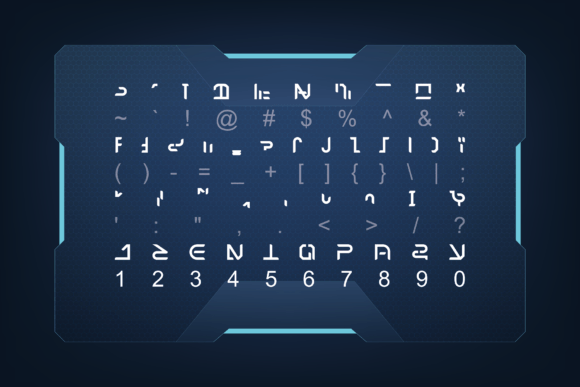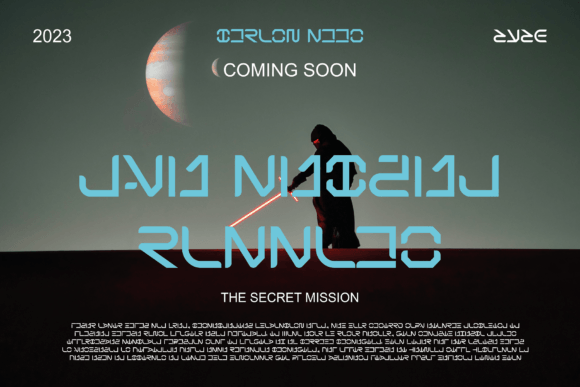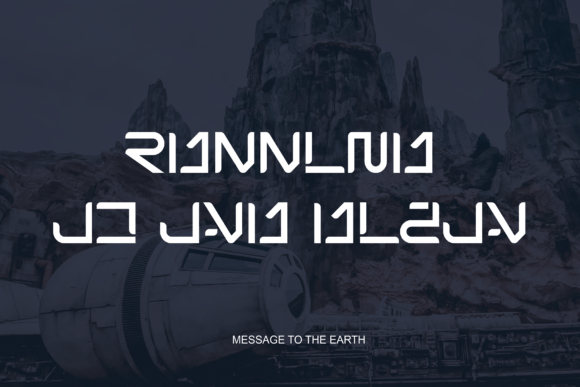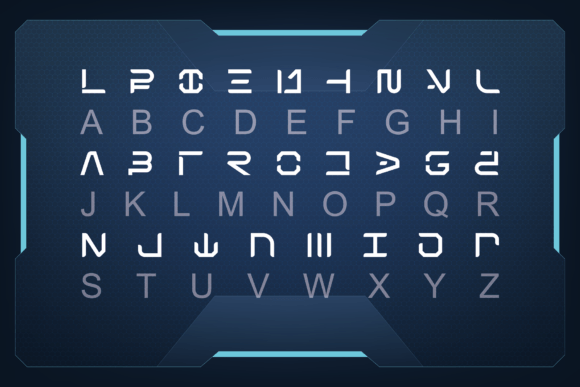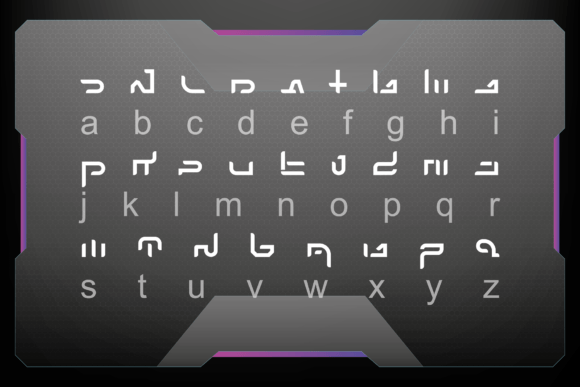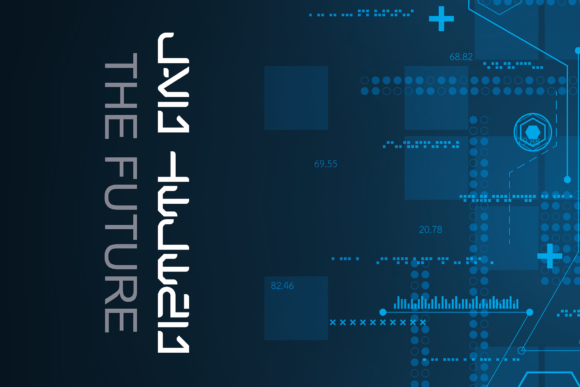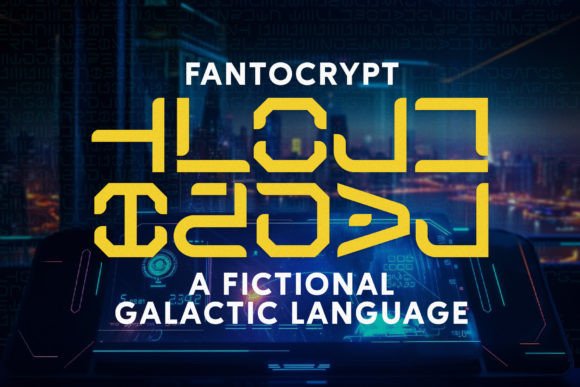
Unveiling the Mystique of Fantocrypt Font: A Cosmic Alphabet of Secrets
Imagine a font that holds the essence of an extraterrestrial language, shrouded in mystery and secrecy. Welcome to the world of Fantocrypt, a typographic marvel that transcends the boundaries of conventional design. This enigmatic alphabet is crafted to convey hidden meanings and messages, reserved for those who are initiated into its secrets. As we embark on this journey to explore Fantocrypt, designers and crafters will discover a font that not only sparks imagination but also offers endless possibilities for creative expression.
The Origin of Fantocrypt: A Galactic Enigma
Fantocrypt is more than just a font; it’s an experience. Its origins are shrouded in mystery, with whispers of an otherworldly source. This alien alphabet is unlike anything seen on Earth, comprising intricate shapes and symbols that seem to hold secrets and stories of their own. Each letter of the Fantocrypt font is carefully crafted to embody a specific meaning, inviting those who dare to decipher its codes to unravel the mysteries hidden within.
The Intricate Design of Fantocrypt
One of the most striking features of Fantocrypt is the way its letters are intricately interconnected, forming a complex web of meaning and nuance. The curves and angles of each character are perfectly balanced, creating a sense of harmony and balance in the overall design. This attention to detail not only makes Fantocrypt visually stunning but also hints at the depth of its cryptographic nature. Whether used for crafting compelling narratives in science fiction or for creating coded messages, Fantocrypt’s design is both functional and aesthetically pleasing.
A Font of Distinction
Despite its otherworldly origins, Fantocrypt boasts a distinctive and unforgettable appearance. Its unique blend of curves, angles, and mysterious symbols sets it apart from more conventional fonts. For designers and crafters looking to add an element of intrigue to their projects, Fantocrypt offers a refreshing alternative. Whether you’re working on a futuristic design project, creating top-secret communications, or simply looking to add a touch of the unknown to your work, Fantocrypt is sure to captivate your audience.
Exploring the Mystique of Fantocrypt
For those drawn to the mysterious and unknown, Fantocrypt is a treasure trove of creative possibilities. Its enigmatic symbols and hidden meanings invite exploration and discovery, making it a perfect fit for projects that require a touch of the extraordinary. Designers can use Fantocrypt to add depth and intrigue to their work, while crafters can explore new ways to incorporate this cosmic alphabet into their projects. From science fiction novels to futuristic designs, Fantocrypt offers a versatile and captivating solution.
Practical Applications of Fantocrypt
So, how can designers and crafters make use of Fantocrypt in their projects? Here are a few ideas:
- Science Fiction Writing: Add an authentic touch to your science fiction novels or short stories with Fantocrypt. Use it for chapter titles, quotes, or even as a decorative element within your text.
- Graphic Design: Incorporate Fantocrypt into your graphic design projects for a futuristic look. It’s perfect for posters, flyers, or any design that requires a touch of the unknown.
- Crafting: If you’re into crafting, consider using Fantocrypt for making personalized gifts, such as customized jewelry, woodwork, or even hand-lettered quotes.
- Secret Messages: For those who love creating coded messages, Fantocrypt offers a unique solution. Use it to write secret notes or messages that only the initiated can understand.
Fantocrypt is not just a font; it’s a gateway to a world of mystery and intrigue. Its unique design, coupled with its potential for hidden meanings and messages, makes it a valuable tool for designers and crafters looking to add a touch of the extraordinary to their projects. Whether you’re crafting a science fiction narrative, designing a futuristic project, or simply exploring the unknown, Fantocrypt invites you to embark on a journey of discovery and creativity. With its cosmic origins and enigmatic symbols, Fantocrypt is sure to leave a lasting impression on all who dare to explore its secrets.